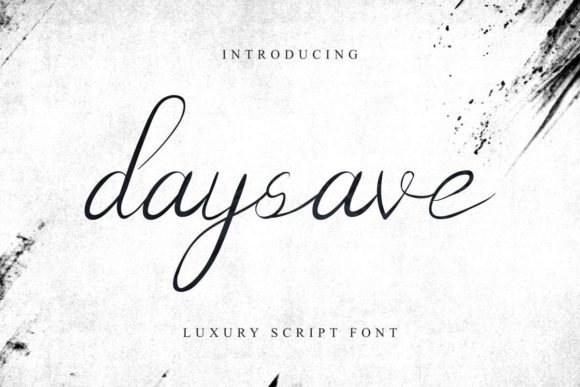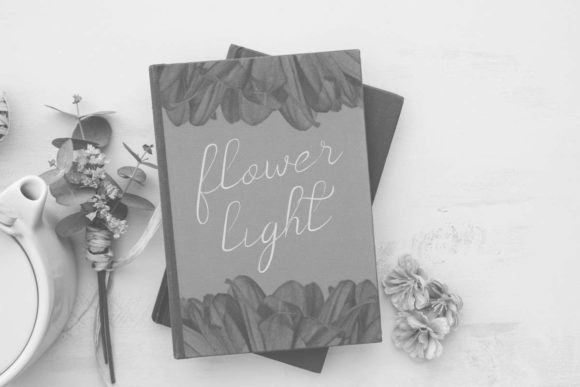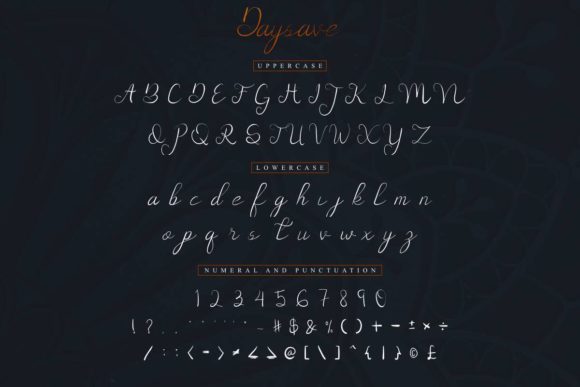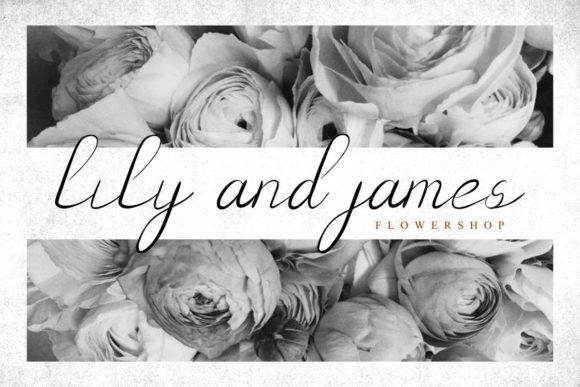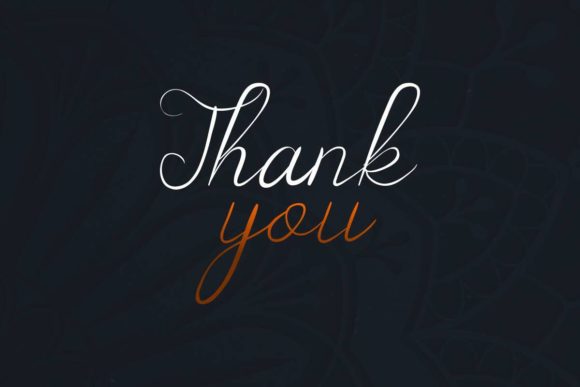
The Perfect Script for Your Masterpiece
Have you ever been brainstorming a creative project, pouring over ideas and inspiration, and then – BAM! – the perfect font pops into your head? That’s exactly what happened to us when we stumbled upon the Daysave Font. Its elegant, relaxed vibe instantly sparked a flurry of ideas for wedding invitations, quotes, and greeting cards.
The Daysave Font is a gorgeous, round lettered handwritten font that adds a touch of sophistication to any design. Whether you’re a seasoned designer or just starting out, this font is a valuable addition to your toolkit. With its versatility and beautiful aesthetic, it’s the perfect choice for logos, business cards, and more. The Daysave Font is more than just a font – it’s a creative catalyst, waiting to inspire your next masterpiece.
Key Features of Daysave Font
- Unique characteristic: Designed with a modern, clean aesthetic, making it ideal for digital and print applications
Designer Review: Daysave Font
Overall, I’d say the Daysave font is a solid addition to any designer’s toolkit. ✨ The font’s modern and sleek aesthetic makes it perfect for a wide range of applications, from branding and marketing materials to digital products and websites.
Here are some of the things that really stand out:
- ✨ High level of customization: The font offers a range of weights and styles, allowing you to tailor it to your specific needs.
- ✨ Versatility: Daysave works well in both digital and print formats, making it a great choice for multi-channel projects.
- ✨ Friendly for web development: The font is well-optimized for web use, ensuring fast and seamless loading.
However, there are some limitations to keep in mind:
- ⚠️ Limited language support: The font may not be compatible with all languages, which could be a concern for global projects.
- ⚠️ Potential for overuse: The font’s modern aesthetic may lead to overuse, which could make it feel cliché or unoriginal.
Overall, I’d recommend the Daysave font for designers who want a clean, modern look without sacrificing flexibility and customization options. With some careful consideration of its limitations, this font can be a valuable addition to your design toolkit.
Tips for Getting the Most Out of Daysave Font
Use the Daysave font for creating modern and minimalist designs.
Combine the font with bold and italic styles to add emphasis and variety to your text.
Experiment with different font sizes and colors to create visual interest and hierarchy in your design.
The Daysave font is ideal for:
Business cards and company branding.
Marketing materials and promotional graphics.
Web design and digital interfaces.
Alternatives to Daysave Font for Designers
Open Sans is a clean, modern sans-serif font that is highly legible in digital formats. It’s ideal for use in body text, headings, and titles, making it a versatile font for various design applications. Open Sans is more geometric and rounded compared to Daysave Font, which has a more rounded and condensed look. It’s also available in a wide range of weights and styles, making it easy to customize for different design needs.
Montserrat is a geometric sans-serif font that is inspired by the urban environment of Montserrat, Argentina. It’s highly legible and versatile, making it suitable for use in headings, titles, and body text. Montserrat has a more geometric and condensed look compared to Daysave Font, which makes it ideal for use in digital formats where space is limited. It’s also available in a wide range of weights and styles, making it easy to customize for different design needs.
Lato is a modern sans-serif font that is highly legible and versatile. It’s ideal for use in body text, headings, and titles, making it a great alternative to Daysave Font. Lato has a more rounded and condensed look compared to Daysave Font, which makes it suitable for use in digital formats where space is limited. It’s also available in a wide range of weights and styles, making it easy to customize for different design needs.
Q: Can I customize the Daysave Font for my specific project?
Yes, the Daysave Font is a highly customizable OpenType font that supports a wide range of features, including:
- Variable font axes for adjusting font weight, width, and other characteristics.
- Advanced font hinting for improved rendering on various devices.
- Support for Unicode characters and languages.